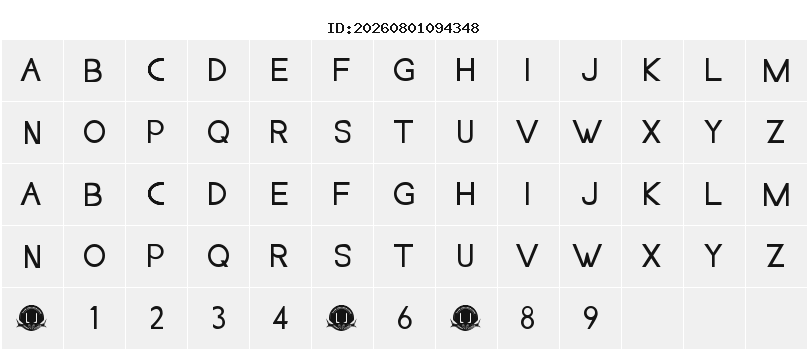
• Font Name: LJ Studios Monitor Large IS
• Designer: Luis Jaramillo
• Manufacturer: LJ-Design Studios
• Description: Fuente en periodo de prueba. Aún se esta Diseñando
About LJ Studios Monitor Large IS.ttf
LJ Studios Monitor Large IS.ttf is a modern, elegant sans-serif font designed for ultimate readability and visual harmony. Perfect for branding, headlines, web design, and print materials.